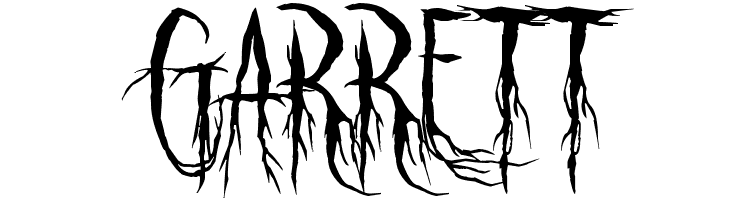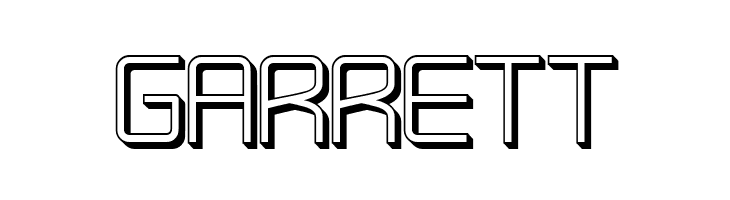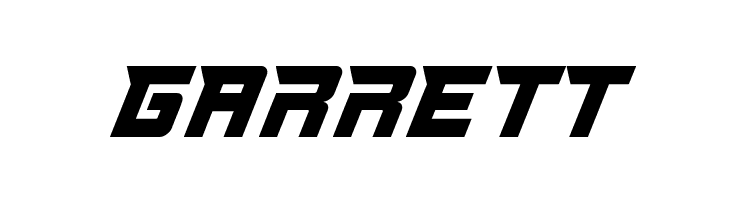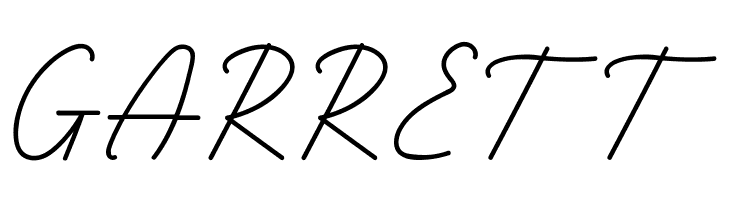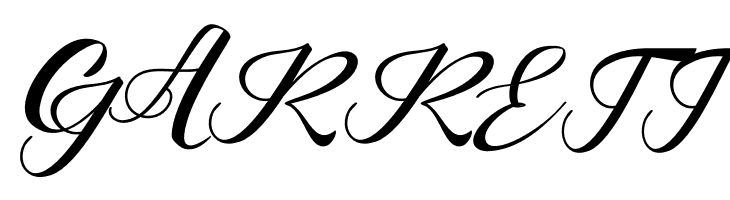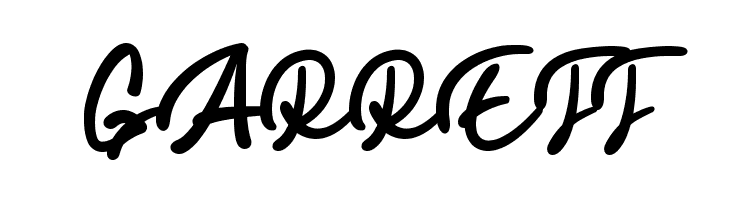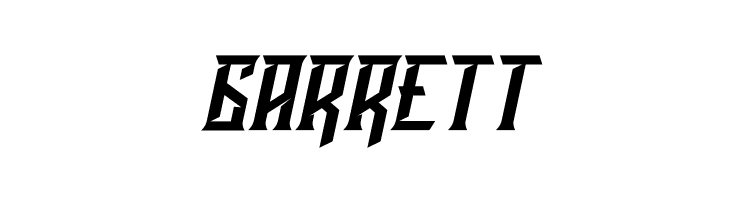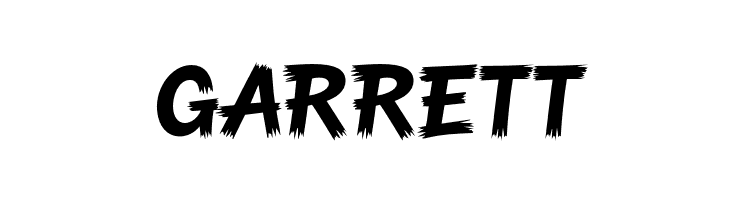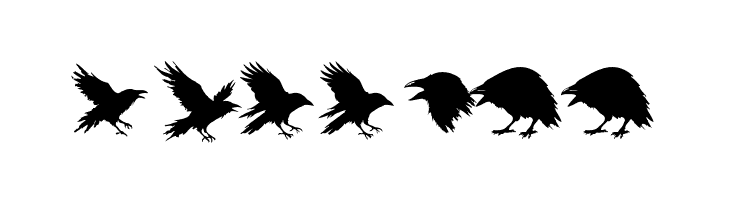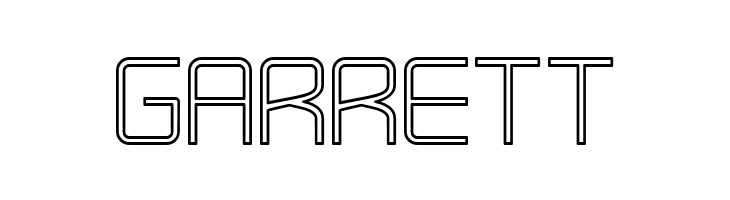
A bold, geometric, italic font with a double-line effect and a modern, tech-inspired style.
A bold, geometric font with a digital, pixelated style.
A bold, high-contrast font with a modern and impactful style.
A bold, cursive script font with flowing, energetic strokes.
An elegant, flowing script font with ornate, cursive strokes.
A bold, geometric font with a modern, industrial aesthetic.
A modern, geometric font with consistent stroke width and slightly rounded corners.
A futuristic, geometric font with sharp angles and a bold, tech-inspired design.
A bold, expressive script font with flowing, cursive characters.
A lively and expressive handwritten font with fluid, dynamic strokes.
A bold, italic, and geometric font with a futuristic style.
A haunting, branch-like font with jagged, eerie strokes.
A bold slab serif font with a modern, industrial aesthetic.
A jagged, gothic-inspired font with elongated, sharp characters.
A bold, brush-stroke display font with jagged, energetic edges.
A display font of raven silhouettes and distressed symbols.
A bold, edgy font with sharp, angular lines and high contrast, ideal for gothic or horror themes.
A bold, angular font with a Gothic, medieval flair.
A bold, angular italic font with a futuristic and energetic style.
A bold, angular font with a dynamic slant and geometric style.
A bold, geometric display typeface with blocky, high-contrast letterforms.
A futuristic, angular font with a geometric and sci-fi inspired design.
An elegant and flowing script font with ornate, decorative letterforms.
A modern, handwritten font with a casual and flowing style.
A bold, expressive handwritten font with brush-like strokes.
A bold, geometric font with strong lines and a modern aesthetic.
A bold, italic font with a dynamic and modern style.
A bold, geometric font with a futuristic and modern design.